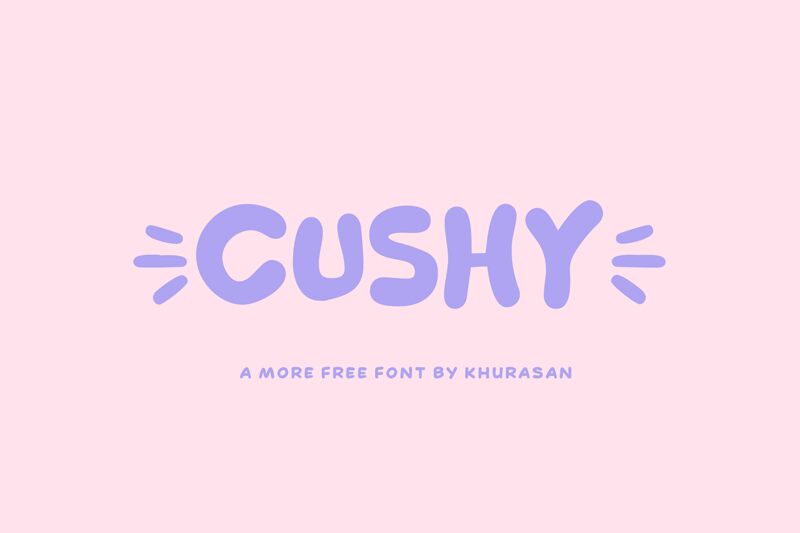
Cushy
Cushy, a bold and semi-expanded display font by Khurasan, adds a playful touch to any project. With its cartoon-style design, it is perfect for children's book covers, animated movie posters, vibrant logos for toy stores or amusement parks. Its catchy and eye-catching features make it suitable for creating attention-grabbing headlines or titles in magazines and advertising campaigns. Cushy injects a dose of fun into websites aimed at kids' entertainment or creative art platforms. Let this lively font bring your projects to life with its energetic and whimsical appeal.